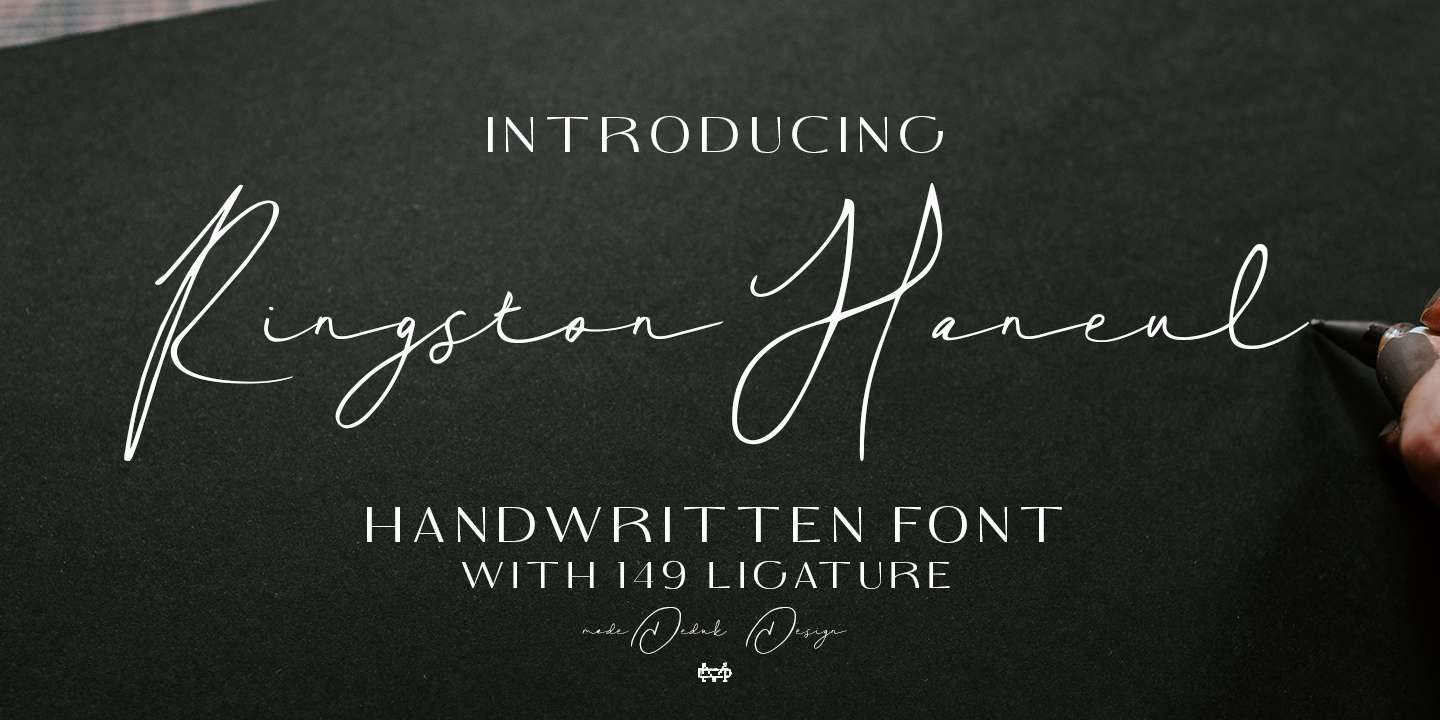
Ringston Haneul
Designed by Suandana Ipandemade, Ringston Haneul is a hand drawn and script font family published by madeDeduk.
Really excited to introduce Ringston Haneul is a fresh stylish signature to give a incredible impression for all your project design come with more than 124 ligatures in each font to make everything look realistic handmade signature.
Foundry madeDeduk
Styles Hand Drawn, Script
Designer Suandana Ipandemade